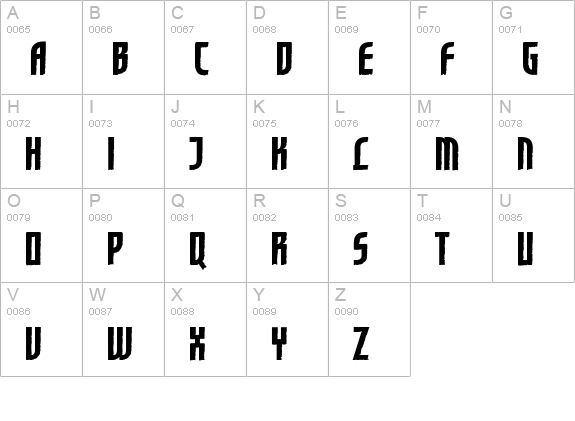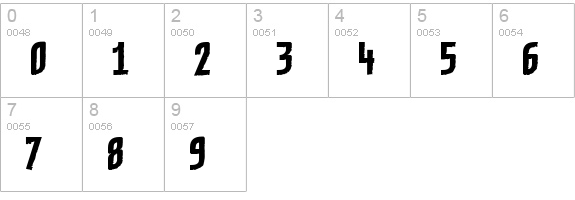
GrafiloneLLBold Font Details
Introducing GrafiloneLLBold font, a captivating and versatile typeface that exudes elegance and sophistication. Its bold and striking design makes it perfect for headlines, titles, and other eye-catching text. With its unique blend of modern and classic elements, GrafiloneLLBold font adds a touch of style and flair to any design project. This font is not only aesthetically pleasing but also highly legible, ensuring that your message is conveyed clearly and effectively. Whether used for print or digital media, GrafiloneLLBold font commands attention and leaves a lasting impression. And the best part? GrafiloneLLBold font is completely free to download at FontsMarket.com. So why wait? Give your designs a touch of class and download GrafiloneLLBold font today!